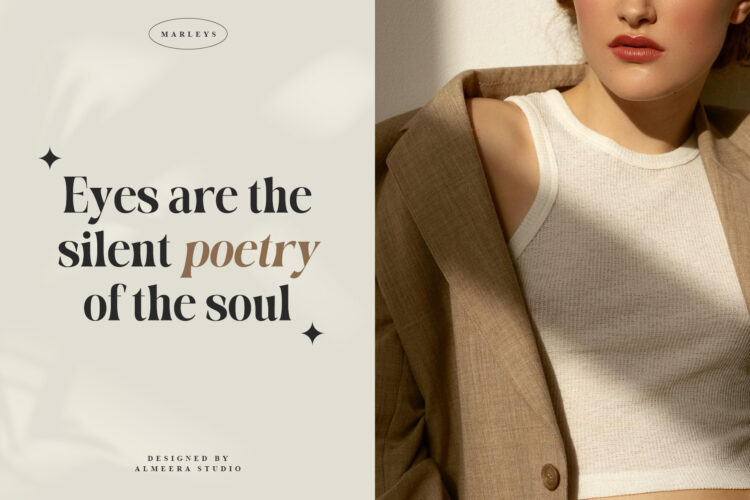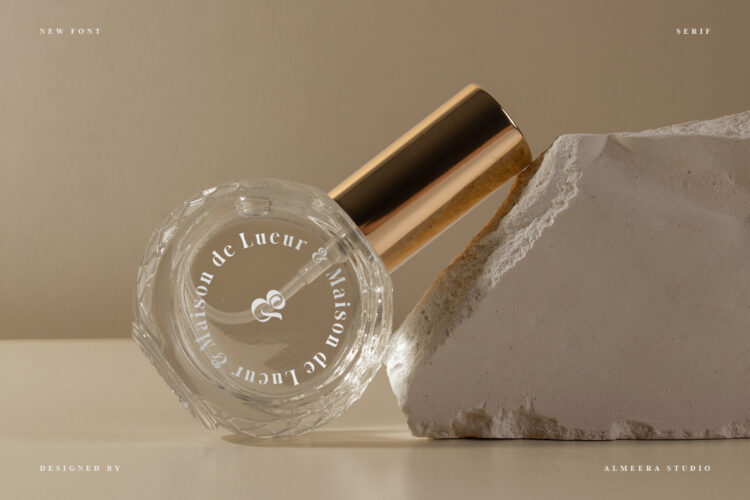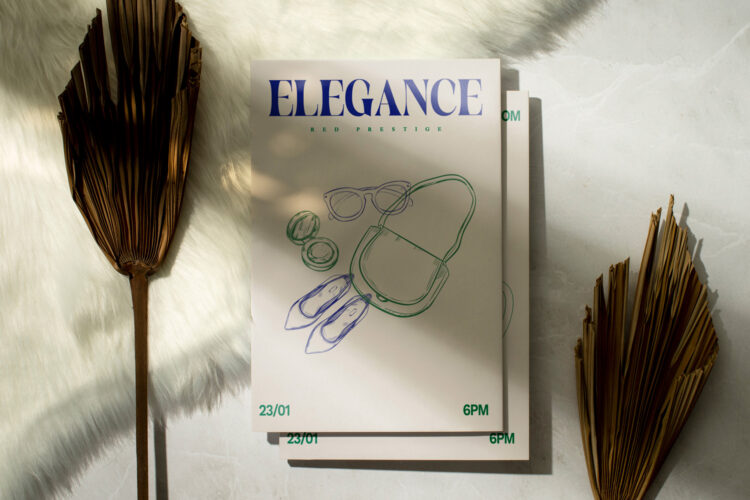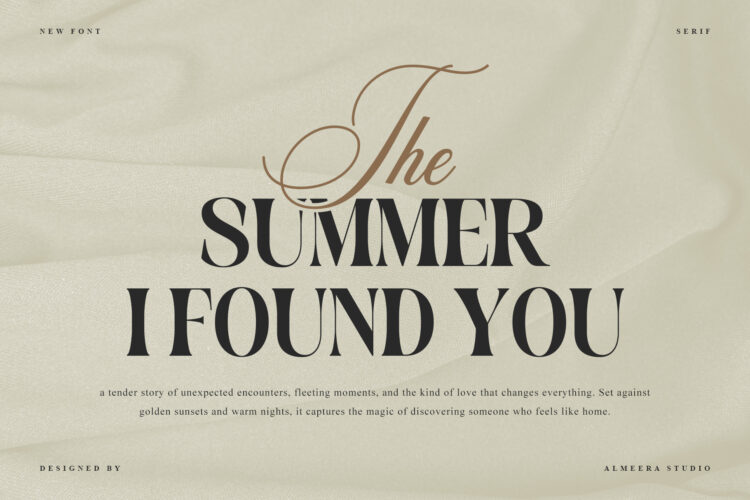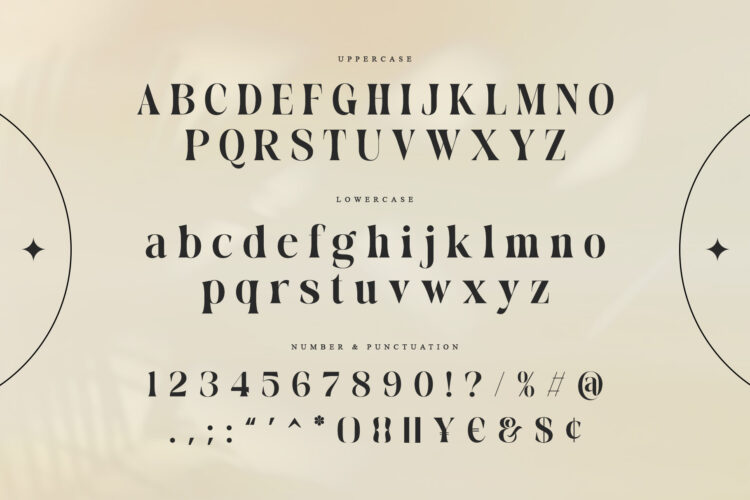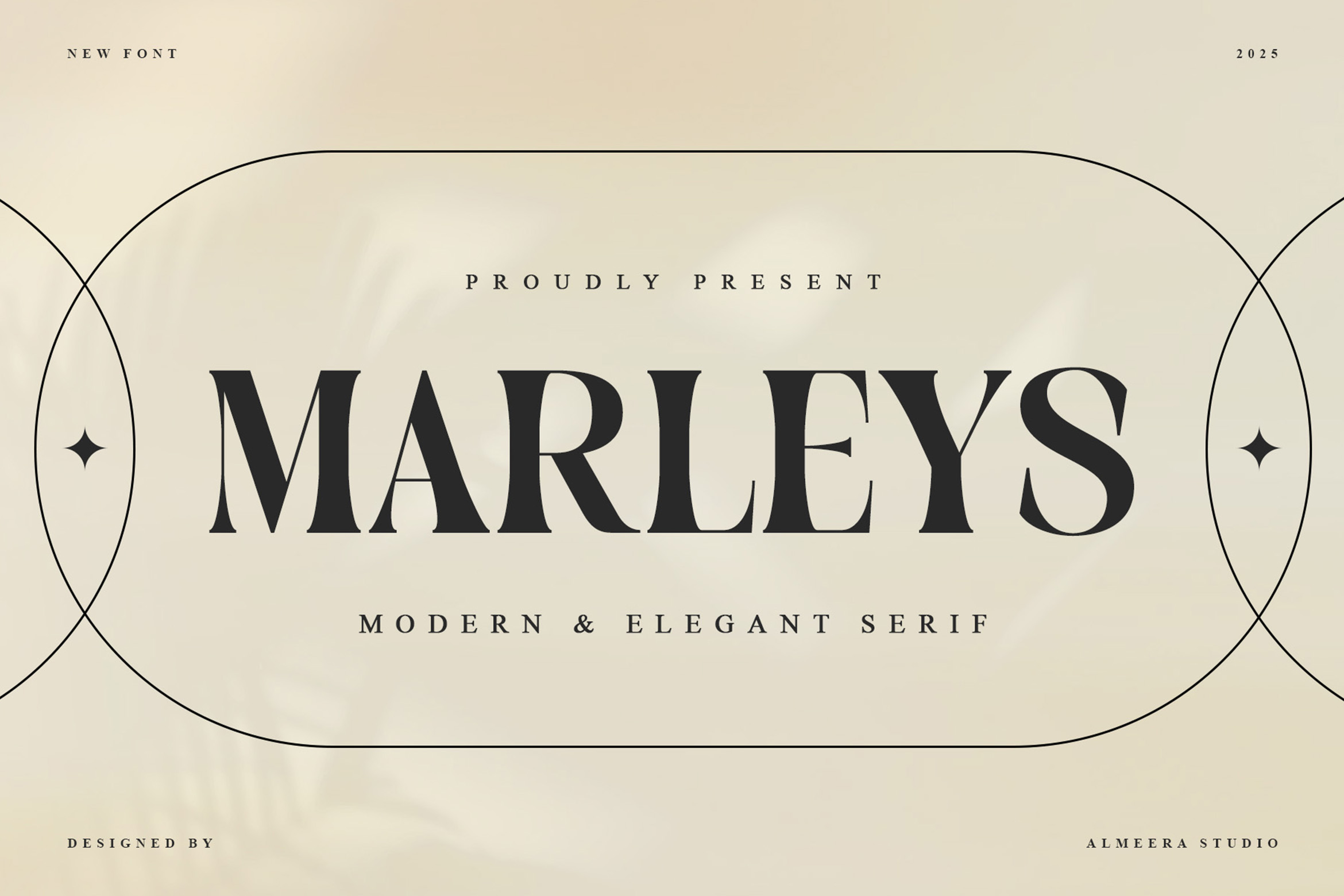
Marleys is a modern serif font that blends classic character with contemporary design. Its balanced details and stylish serifs make it a strong choice for branding, magazines, wedding invitations, packaging, and logos. Marleys creates harmony between tradition and modern aesthetics, delivering a polished and distinctive look.